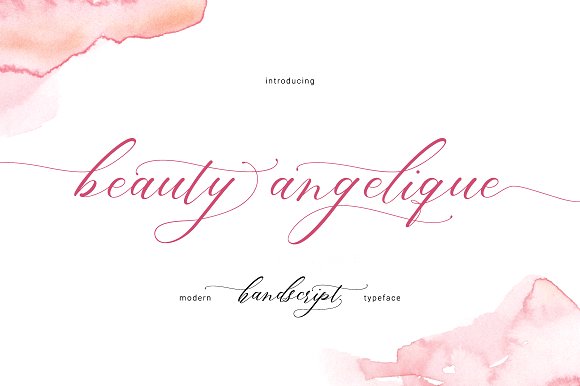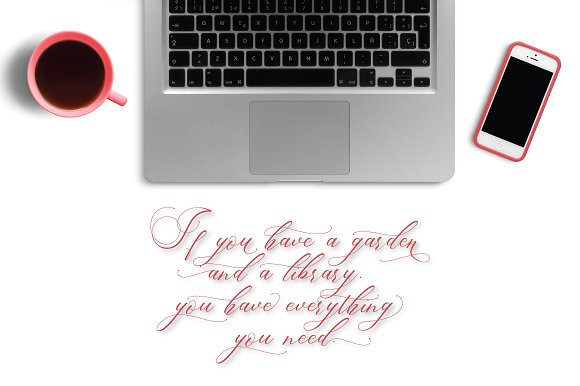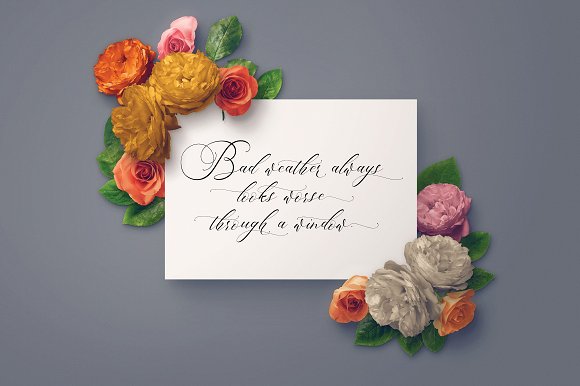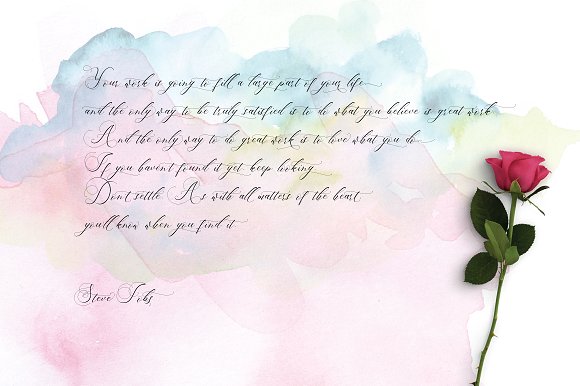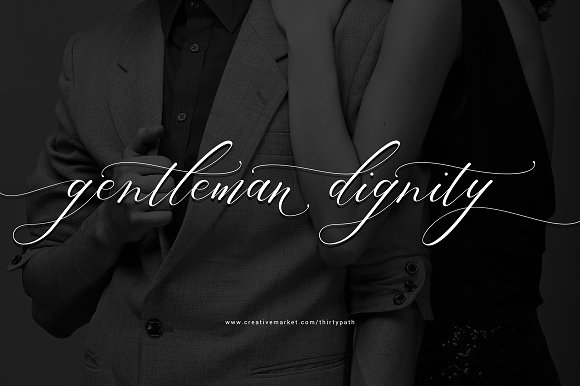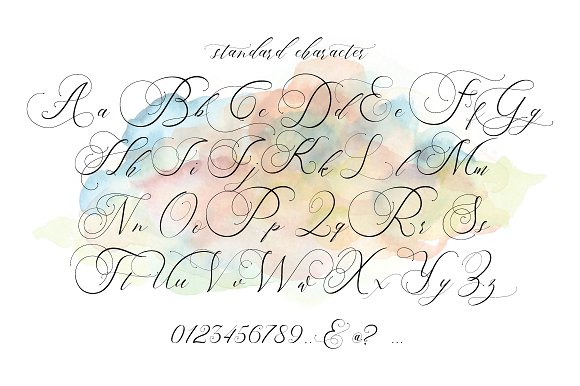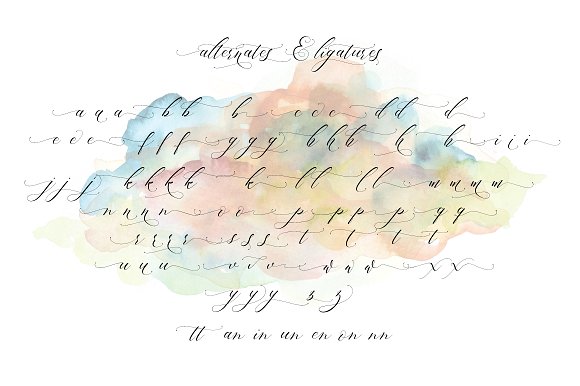
HomeScript FontsBeauty Angelique Font Script Fonts Beauty Angelique Font FacebookXPinterestWhatsApp Beauty Angelique Font Poster 2 Beauty Angelique Font Poster 3 Beauty Angelique Font Poster 4 Beauty Angelique Font Poster 5 Beauty Angelique Font Poster 6 Beauty Angelique Font Poster 7 About Beauty Angelique Font Beauty Angelique is a think, decorative font. DOWNLOAD ON CREATIVE FABRICAThis font is sold and delivered by Creative Fabrica. Font Canyon may earn a commission if you buy through this link. People also explored Boardley Script Font Amelia Font Christian Font Retrospace Joshan Brush Font Junior Prince Font Magenta Script Font Chocolate Day Font Cute My Love Font 285 0 TagsBeauty Angelique Font Previous articleBright Daddy FontNext articleBeastmachine Font LEAVE A REPLY Cancel reply Comment: Please enter your comment! Name:* Please enter your name here Email:* You have entered an incorrect email address! Please enter your email address here Website: Save my name, email, and website in this browser for the next time I comment. Personal Use Free Royal Bengal Tiger Personal Use Free Read more about this font Color Personal Use Free Read more about this font BD Fluke Personal Use Free Read more about this font Miracles Personal Use Free Read more about this font BLOG To increase your work productivity, choose the most readable fonts. In today's fast-paced work environment, where digital communication and information consumption are integral to our daily routines, the choice of fonts can significantly impact... Modern Sans-Serif Fonts That Brands Love in 2025 Using Fonts in Digital Marketing: Tips to Strengthen Your Brand Identity Free vs Paid Fonts: Why Investing in Premium Fonts Is Worth It